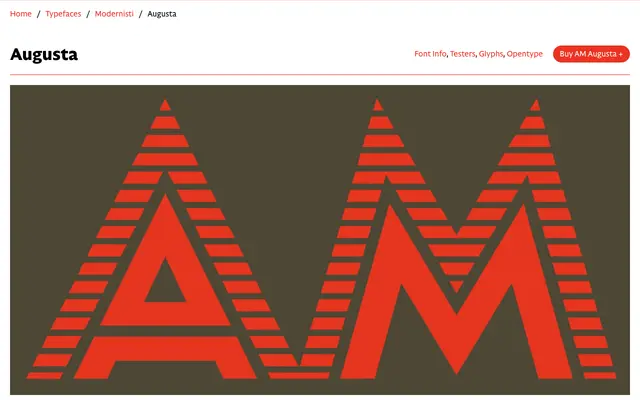
AM Augusta
CAST · Riccardo Olocco · 2024
AM Augusta specimen from CAST
A digital revival of a 1930s Neapolitan metal type, combining geometric inline construction with residual Art Nouveau letterforms in a single all-caps weight.
Designed by Riccardo Olocco, this revival traces back to the Fonderia Tipografica Meridionale Armando De Luca of Naples, a foundry active from 1896 until the early 1980s. Each character pairs a solid side with a shaded side built from a grid of thin parallel lines, a construction technique shared with certain German inline types of the late 1920s, though Augusta is considered an original design. Olocco tightened the letter spacing, regularised the grid construction across the full character set, and retained an alternate round E, accessible via OpenType features, that carries the Art Nouveau flavour present in a handful of the original letters.
An all-caps inline geometric revival with a characteristic shaded grid construction, placing it firmly in the display category. The hybrid of late-1920s German inline conventions with residual Art Nouveau letterforms makes it distinct from a standard geometric sans.